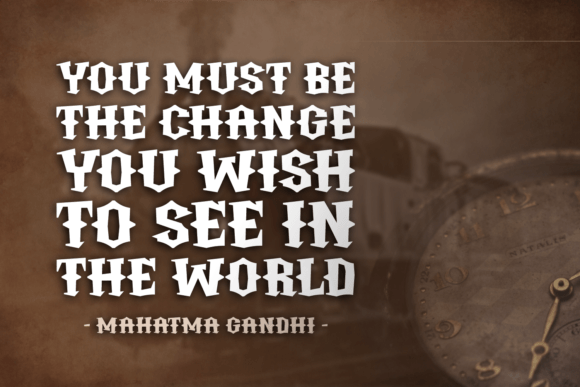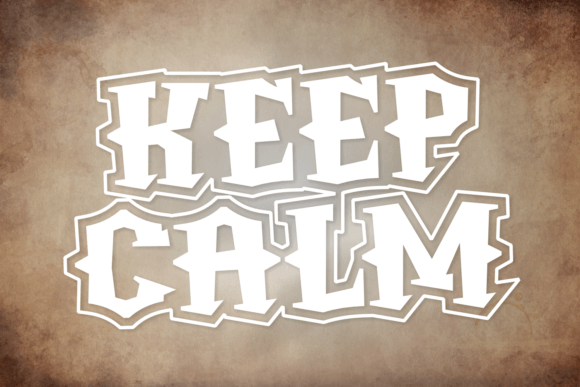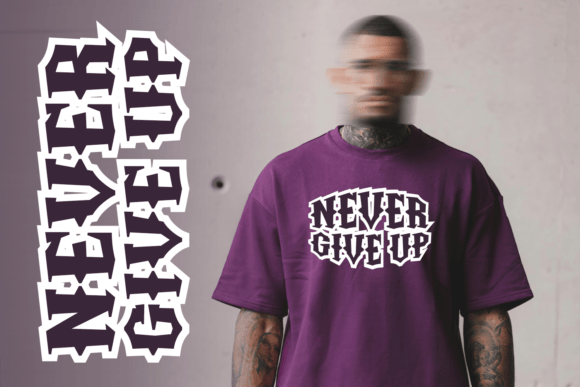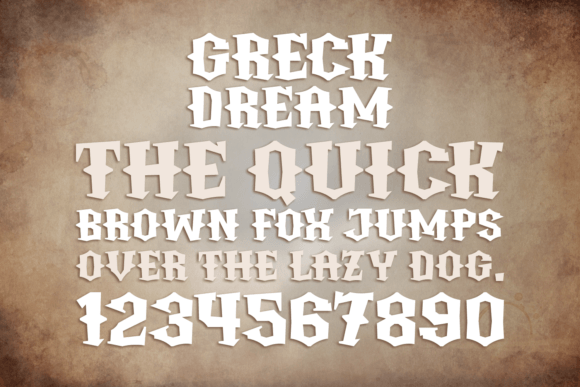
The Greck Dream Font: A Bold Blackletter Beauty
I’ll never forget the design struggle I faced while working on a project for a heavy metal band’s album cover. I wanted a font that would scream “listen to our music” and make the listener’s headbang. After hours of searching, I stumbled upon the Greck Dream font, and it was love at first sight! 💥 In this article, I’ll share my experience with this stunning bold blackletter font, its features, and how to make the most of it in your designs.
- ✨ The bold, eye-catching design that commands attention
- ✅ Perfect for posters, album covers, branding, and headlines
- 💪 Highly legible, even in smaller sizes
- 🎨 Great for creating a dramatic, edgy look
While Greck Dream is an amazing font, there are a few things to keep in mind:
- 🤔 May not be the best choice for body text or long paragraphs, as it’s quite bold and attention-grabbing
- ⚠️ Some letters may appear similar or have slight variations, so use it with care in titles or short texts
A Practical Guide: Using Greck Dream in Your Designs
- Experiment with OpenType features, such as ligatures and stylistic alternates, to add more flair to your text
Greck Dream was inspired by traditional blackletter fonts, with a modern twist. The designer aimed to create a bold, eye-catching font that would work well in a variety of design applications. The result is a stunning font that’s perfect for making a statement.
Q: What type of projects is Greck Dream best suited for?
A: Greck Dream works well in posters, album covers, branding, and headlines. Its bold design makes it perfect for attention-grabbing applications.
Q: Can I use Greck Dream for body text or long paragraphs?
A: While Greck Dream is a beautiful font, it’s not the best choice for body text or long paragraphs. Its bold design may be overwhelming for extended reading.
Q: Does Greck Dream support OpenType features?
A: Yes, Greck Dream supports OpenType features, including ligatures and stylistic alternates. You can access these features in compatible applications like Adobe Photoshop and Illustrator.
Q: Is Greck Dream a versatile font?
A: Yes, Greck Dream is a versatile font that can be used in a variety of design applications. Its bold design makes it perfect for making a statement, while its legibility ensures it remains clear even in smaller sizes.